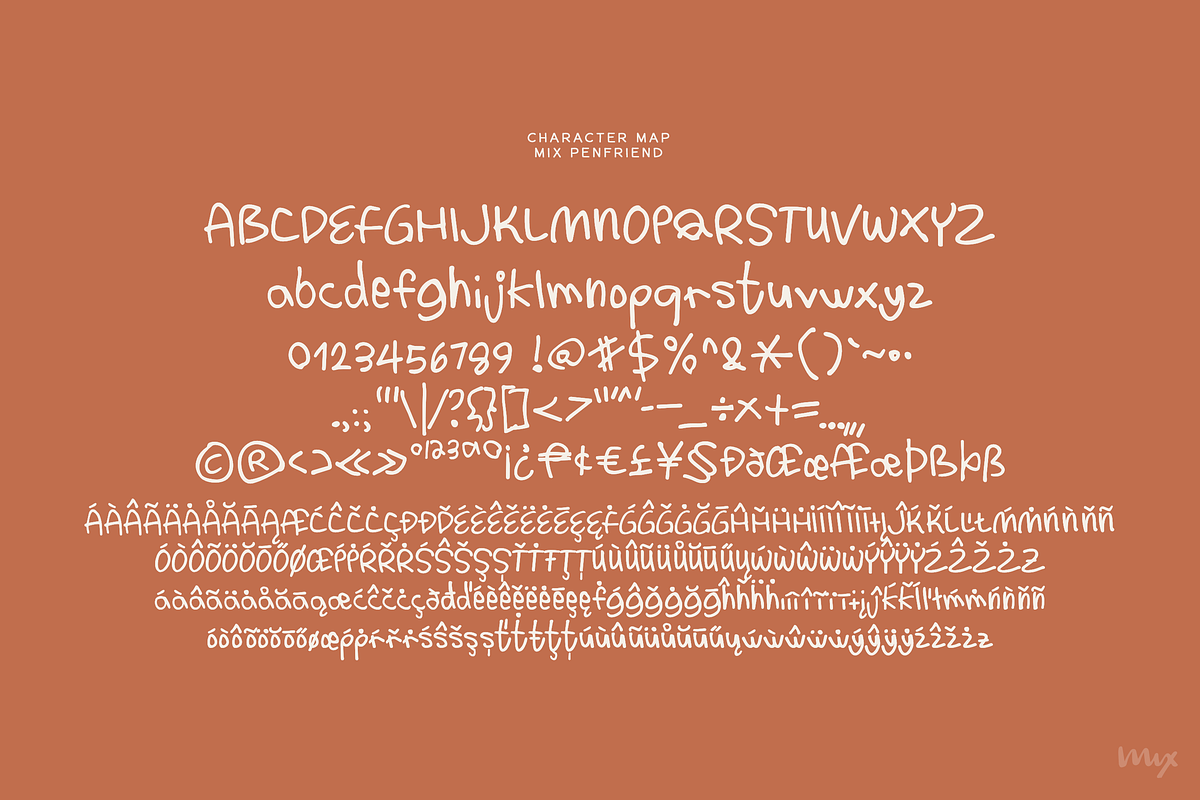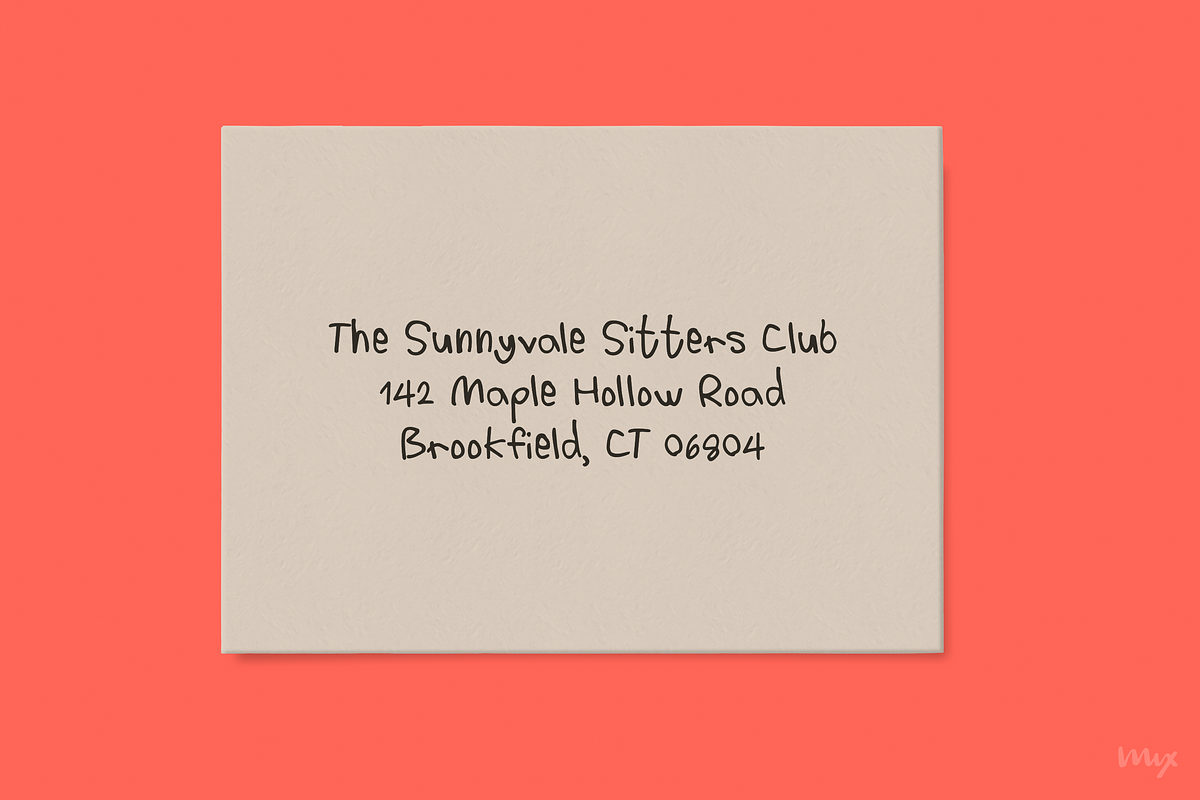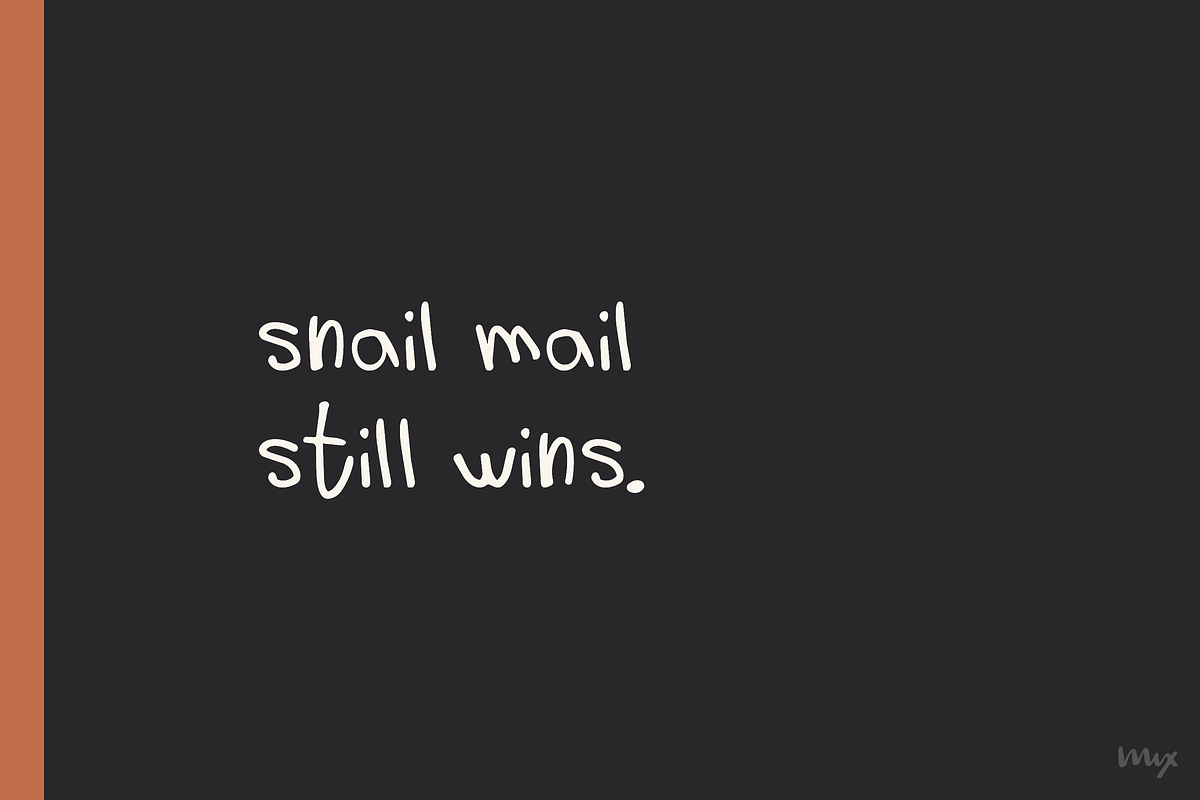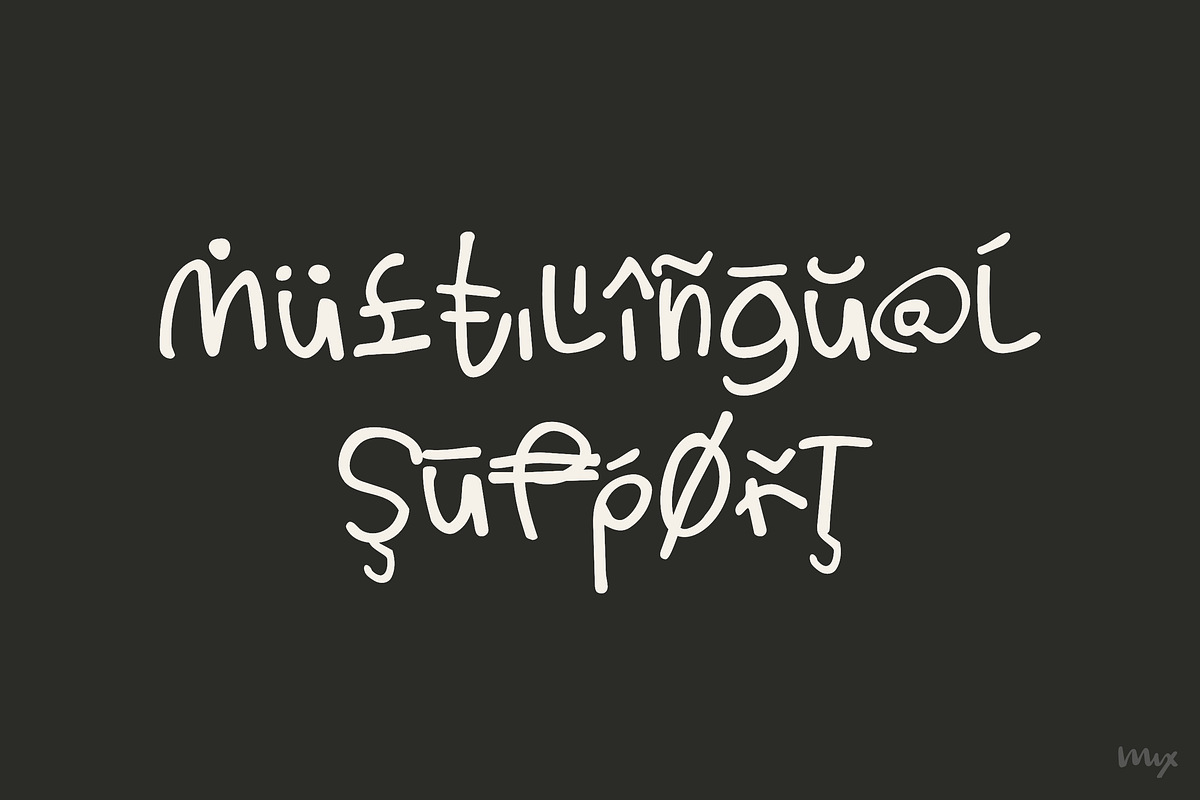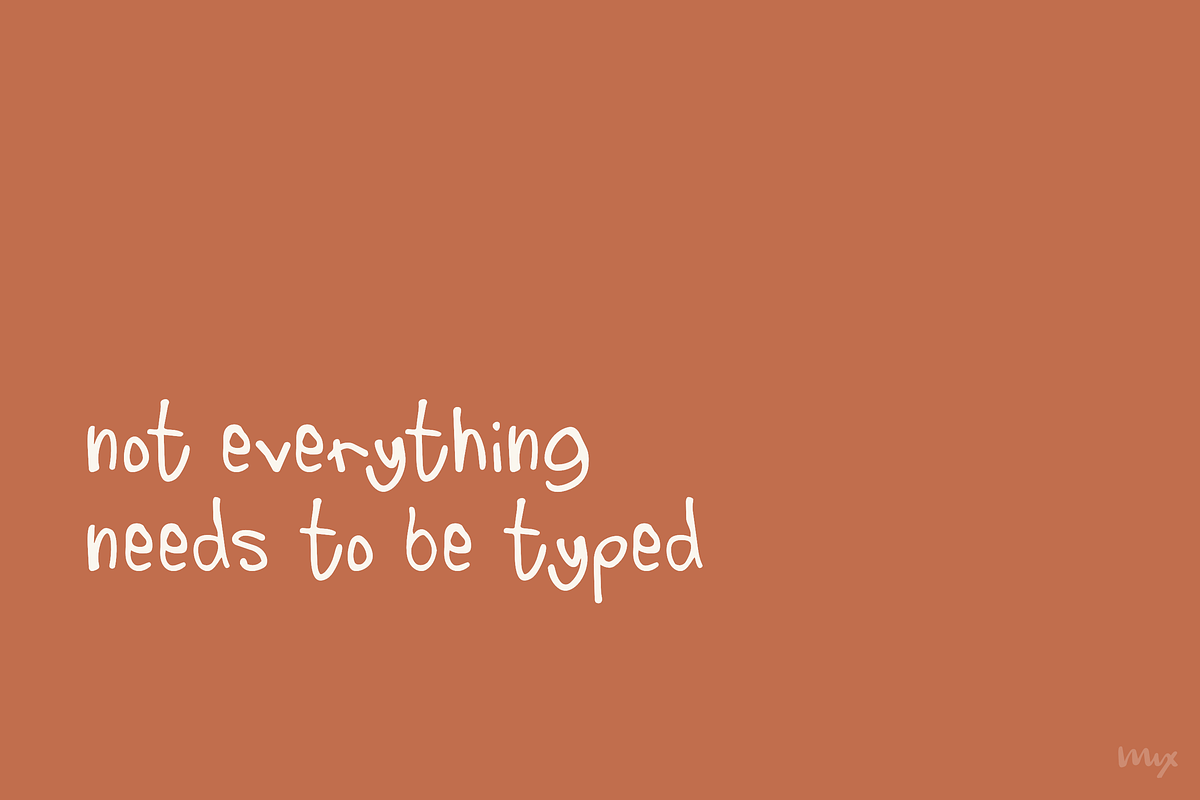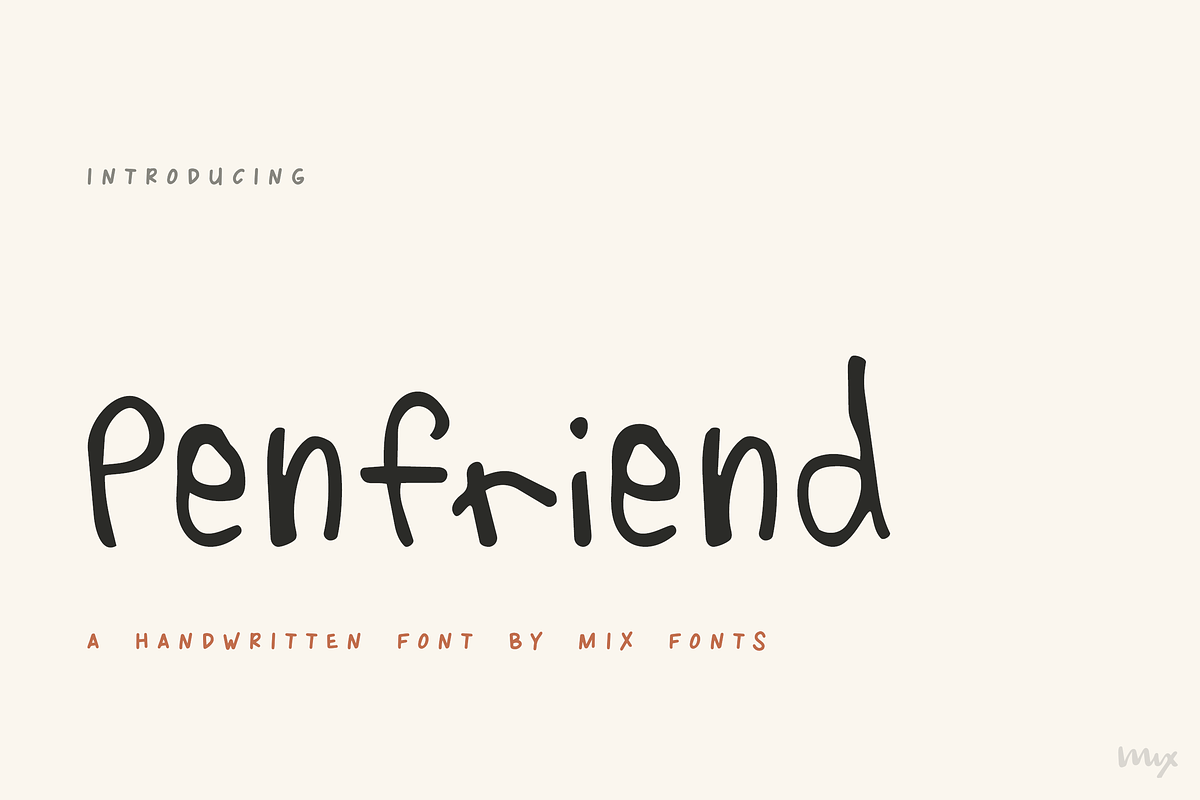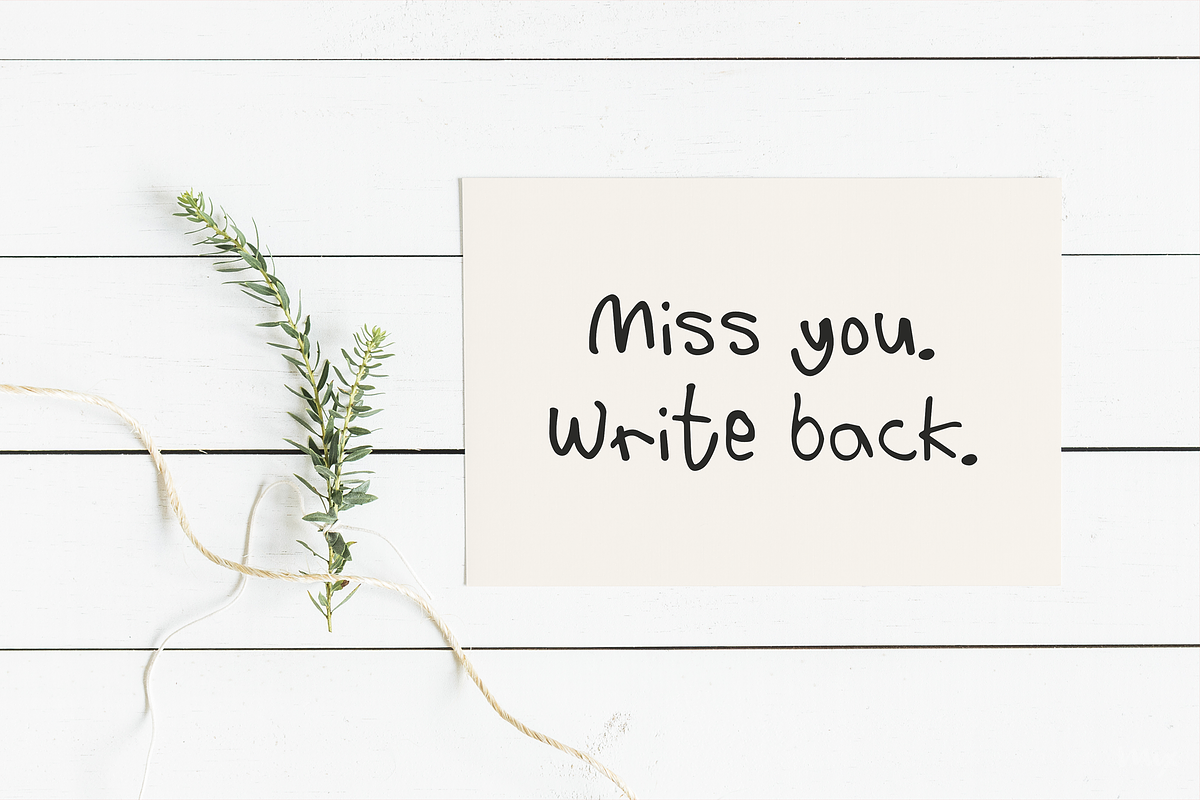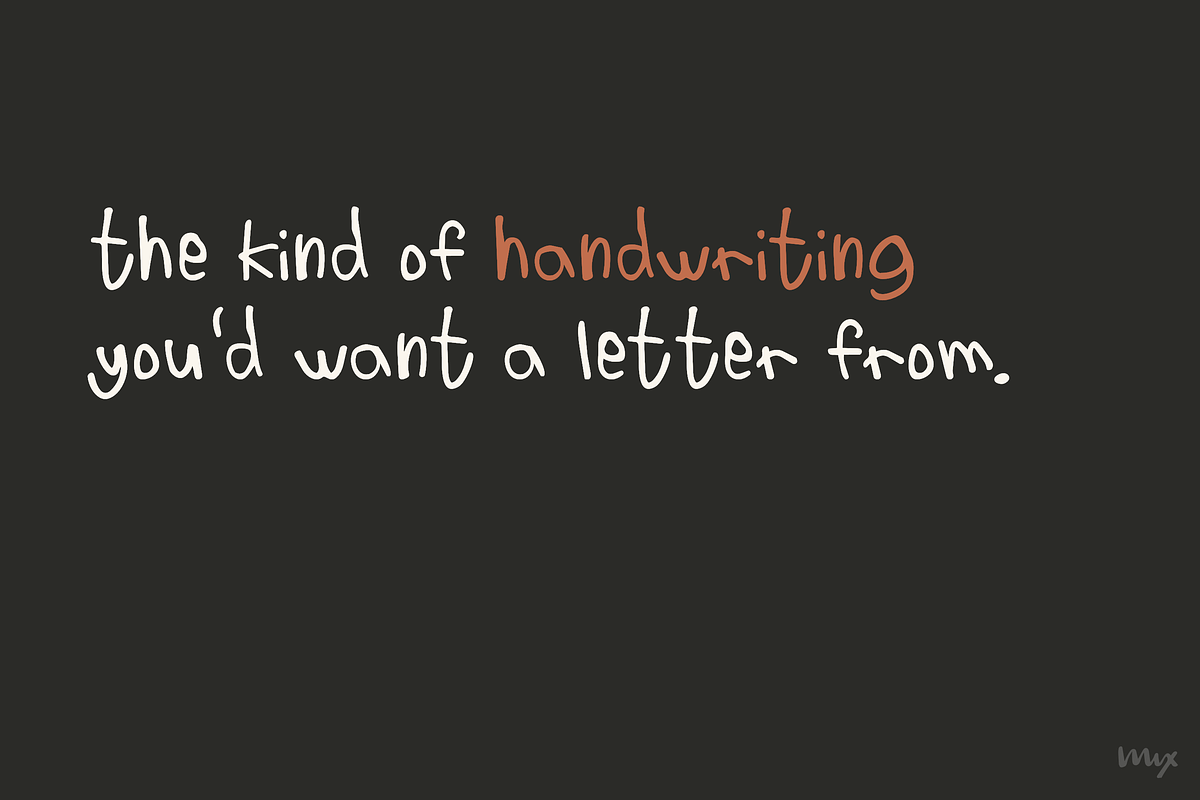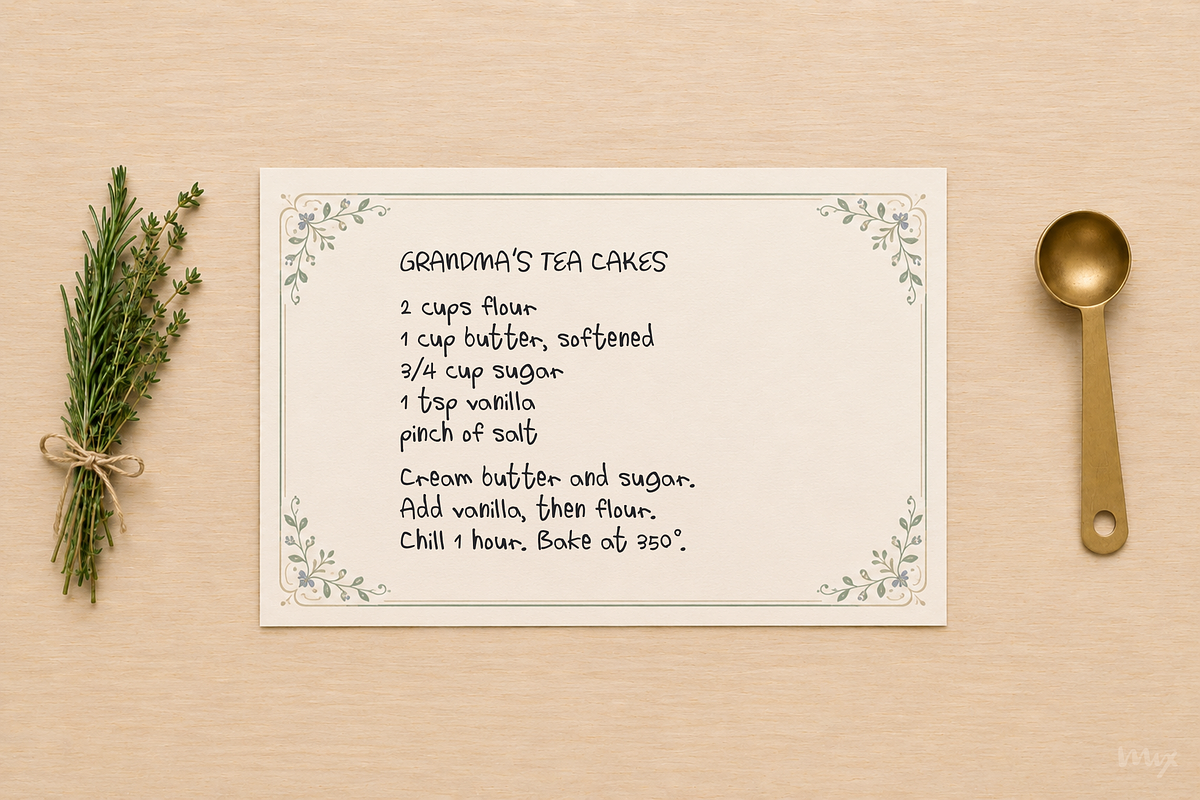
Mix Penfriend - Natural Handwriting
Mix Penfriend is natural handwriting in font form, the kind that looks like a real person with nice penmanship, not a calligrapher performing.
It's a clean, legible, everyday hand made for text that needs to feel personal and still be effortless to read. No swashes, no theatrics, just honest handwriting with a steady rhythm and a warm, unforced character. If you've ever wanted your captions, notes, or packaging to look genuinely handwritten without going full script, this is that font.
It includes punctuation, numbers, symbols, and extended Latin with multilingual support, all drawn in the same hand.
Perfect for planners and journals, greeting cards, stationery, product packaging, scrapbooking, captions and social graphics, recipe cards, and any design that wants a human touch that stays readable.